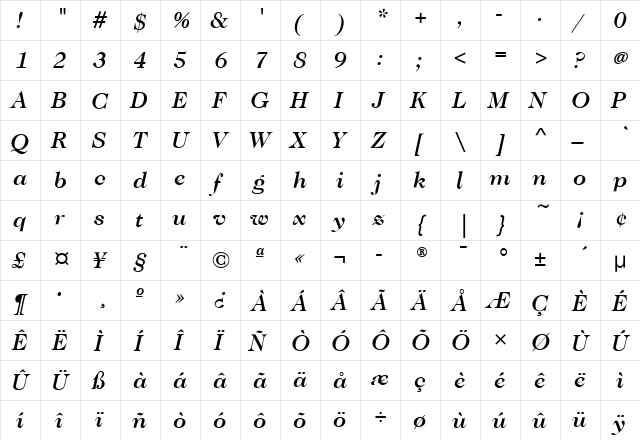
CaslonTwoTweFourMdITC Italic
Design Context for CaslonTwoTweFourMdITC Typeface
CaslonTwoTweFourMdITC is a composed and adaptable typeface that performs quietly and consistently across a wide range of design contexts. Its italic angle brings a sense of urgency and motion to the letterforms.
Pro Tip: Try CaslonTwoTweFourMdITC for annotation and caption copy alongside an upright companion — the contrast in angle creates a dynamic but ordered typographic system.